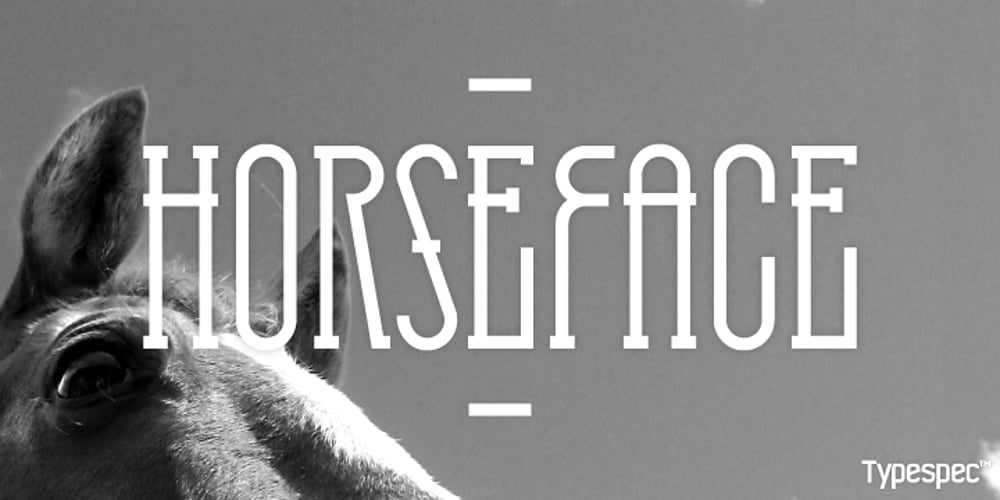
HorseFace
HorseFace font
HorseFace Font Family was designed by Robert Wilson and published by Typespec. HorseFace contains 6 styles and family package options. Horseface is a chic geometric typeface with Didonian roots and a penchant for high fashion. Its mono-linear, formulaic structure is elongated with a generous x-height giving it an upmarket but approachable look, traditional forms remixed with a modern twist. Fundamentally a display typeface, Horseface is best set at large sizes. Because of it’s thin line weight it is advised to expand paths after typing. It is available in six different styles and comes in OpenType (.otf) format for Mac and Windows. Features: Horseface Supports the following OpenType features: Standard ligatures, discretionary ligatures, ordinals, custom fractions, denominators, numerators, small caps, superscript, scientific inferiors, proportional and tabular oldstyle and lining figures, and a slashed zero. There are also three stylistic sets containing alternate glyphs. Supported Languages: Each weight has a 665 glyph character set for use in the following Latin languages: Albanian, Afrikaans, Basque, Bosnian, Breton, Catalan, Croatian, Czech, Danish, Dutch, English, Esperanto, Estonian, Faroese, Finnish, French, Gaelic, German, Greenlandic, Hungarian, Icelandic, Indonesian, Irish, Italian, Latvian, Lithuanian, Luxembourgish, Maltese, Norwegian, Occitan, Polish, Portuguese, Romanian, Sami, Serbian (Latin), Slovak, Slovene, Sorbian, Spanish, Swedish, Swahili, Turkish, Walloon and Welsh.